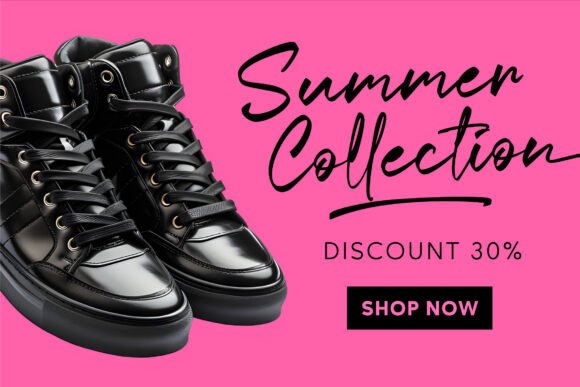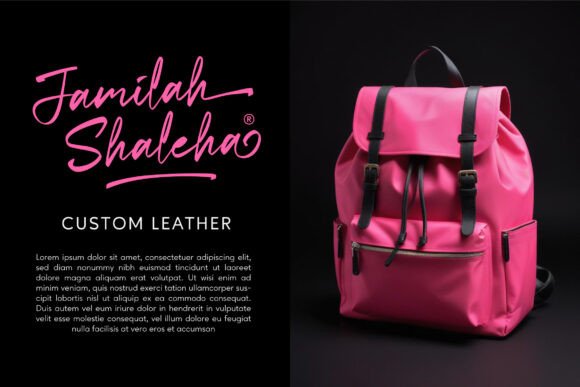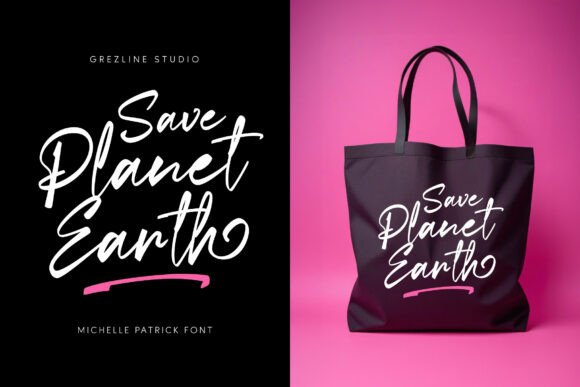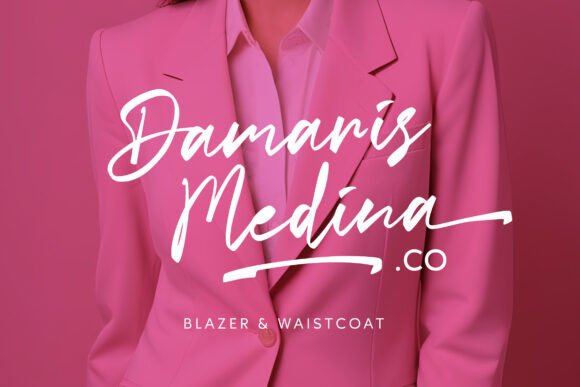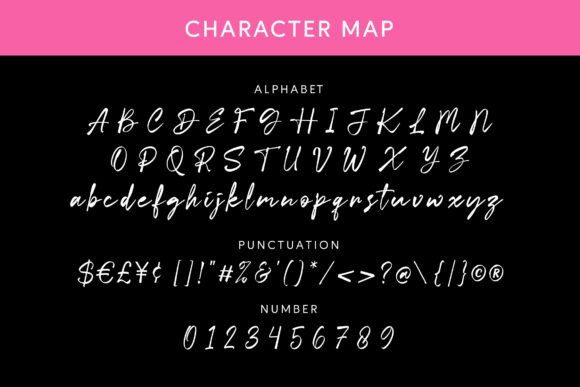
Introduction to Michelle Patrick Font
Remember the feeling of holding a brush in your hand, watching the paint dance across the canvas as your imagination brings a scene to life? That’s the magic of Michelle Patrick Font, a beautiful handwritten script font designed to transport your words to a world of elegance and personality.
As a designer, you know the importance of a well-chosen font in bringing your creative project to life. Michelle Patrick Font is a valuable addition to any design resource, offering a high-quality, free download that’s perfect for adding a touch of artistry to your work. With a transparent background and a range of styles, this font is ready to be used in any project, from a heartfelt invitation to a brand that speaks to the soul.
Whether you’re a seasoned designer or just starting out, Michelle Patrick Font is the perfect companion for your next creative project. In this article, we’ll take a closer look at the features and benefits of this stunning font, and explore how it can help take your designs to the next level.
Key Features of Michelle Patrick Font
- High-quality font suitable for creative projects, offering a unique and stylish touch.
- Free download available, making it an excellent design resource for individuals and professionals alike.
- Includes a transparent background, allowing for seamless integration with various design elements.
- Comes in a single font weight, ideal for creating a cohesive and sophisticated visual identity.
- Designed with a high resolution (1024 x 1024 pixels) for crisp and clear rendering on various devices.
- Perfect for designers, artists, and creatives working on a wide range of projects, from branding and advertising to digital art and publishing.
Honest Review: Michelle Patrick Font
I recently stumbled upon the Michelle Patrick Font while searching for a unique design resource for a creative project. The font is available for free download, which was a major plus in my book.
Here are some things that worked well for me: ✨ The font has a clean and elegant design, perfect for titles and headings. The transparent background is also a great feature, making it easy to use in various design scenarios. The font is highly customizable, allowing for easy color and style adjustments.
However, there are a few limitations to consider: ⚠️ The font is not ideal for large blocks of text, as it can be difficult to read. Additionally, the font may not be compatible with all operating systems, which could cause issues for some users.
Overall, I was impressed with the Michelle Patrick Font. While it may not be perfect, it’s a great resource for designers looking for a unique and high-quality font for their creative projects. If you’re looking for a free download with a lot of potential, the Michelle Patrick Font is definitely worth checking out.
Here are some key features of the font:
- Perfect for titles and headings
- Not ideal for large blocks of text
How to Use Michelle Patrick Font
The Michelle Patrick Font is a free download high-quality design resource ideal for creative projects that require a unique touch. This font features a transparent background, making it perfect for overlays and text effects.
Tips for Getting the Most Out of Michelle Patrick Font
For the best results, use Michelle Patrick Font in conjunction with a high-contrast background to make the text stand out. You can also experiment with layering the font on top of other design elements to create unique text effects.
The Michelle Patrick Font is ideal for creative projects such as blog titles, social media graphics, and product labels. Its unique design makes it perfect for adding a touch of personality to your designs.
Does the Michelle Patrick Font have a transparent background?
No, the Michelle Patrick Font does not have a transparent background. However, the font files do include a white background, making it suitable for use on various design backgrounds.
What is the recommended resolution for using the Michelle Patrick Font in a design project?
For optimal results, we recommend using the Michelle Patrick Font at a resolution of 300 DPI or higher. This will ensure that the font appears crisp and clear in your design project, whether it’s a print or digital project.